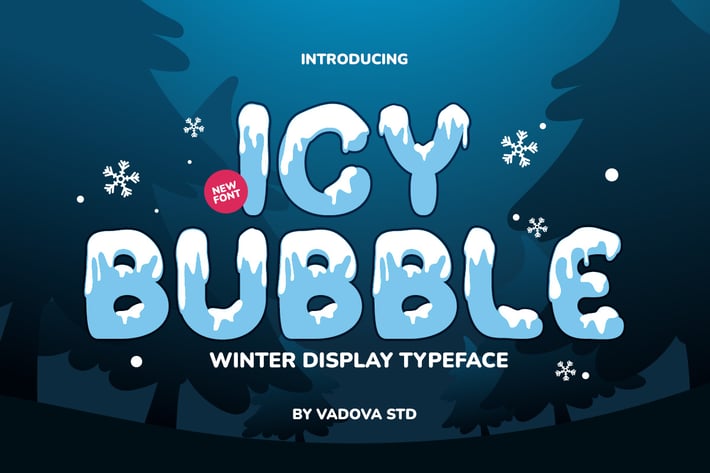
Icy Bubbles Display Winter Font
Icy Bubble is a playful winter display typeface that captures the frosty charm of the holiday season. Its bold, rounded letterforms are covered in icy drips and snow caps, making it the ideal font for winter sales, festive greeting cards, children’s books, themed packaging, and holiday promotions. With its soft cartoon style and bubbly aesthetic, Icy Bubble adds an instant dose of cheer to seasonal social media posts, event flyers, and product tags. The font includes full alphabet support, numbers, and punctuation, all dressed in frosted charm perfect for designers, marketers, and creatives looking to warm up their audience with a chill visual twist.